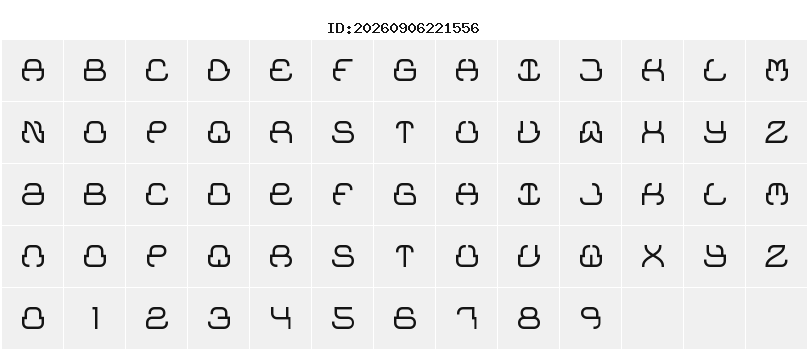
Upraise BRK Preview
• Font Name: Upraise BRK
• Full Font Name: Upraise BRK
About Upraise BRK.ttf
Upraise BRK.ttf is a modern, elegant sans-serif font designed for ultimate readability and visual harmony. Perfect for branding, headlines, web design, and print materials.